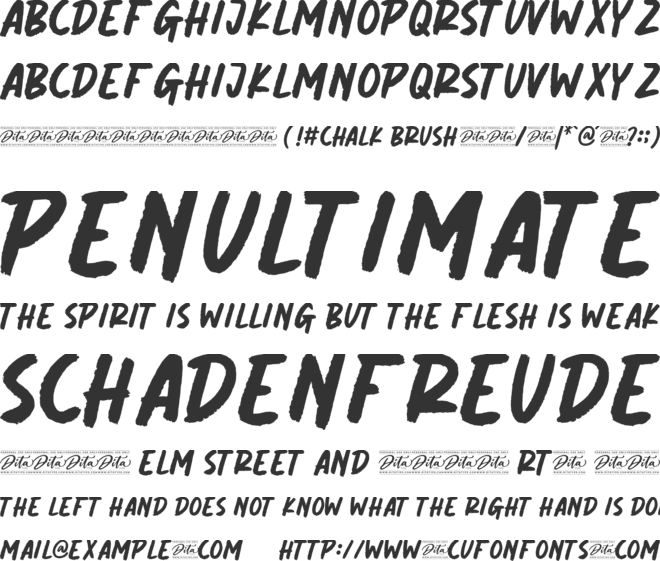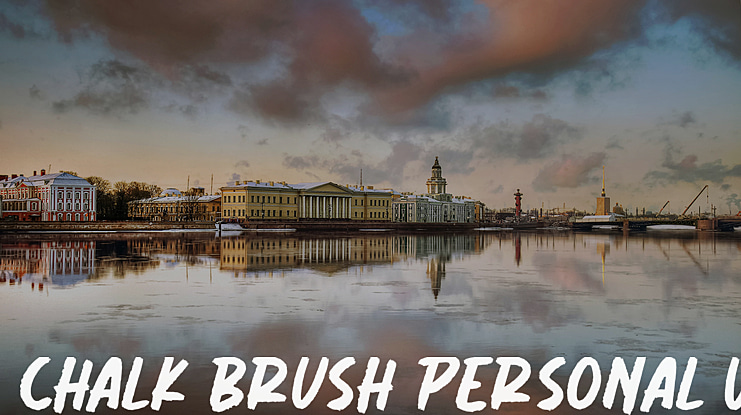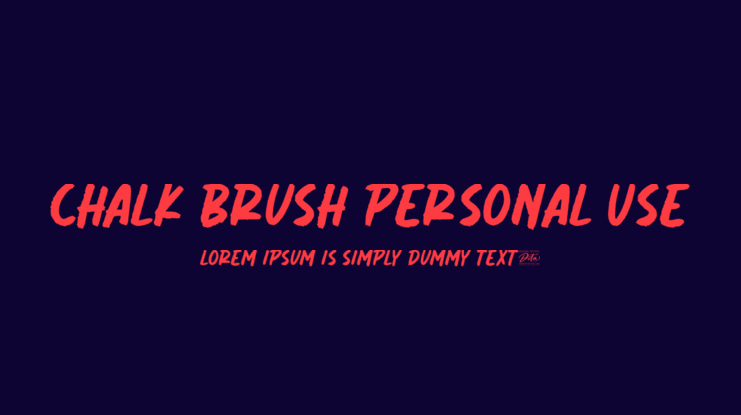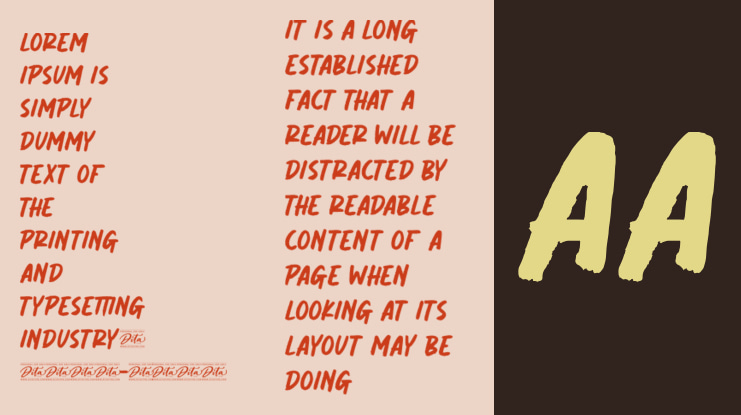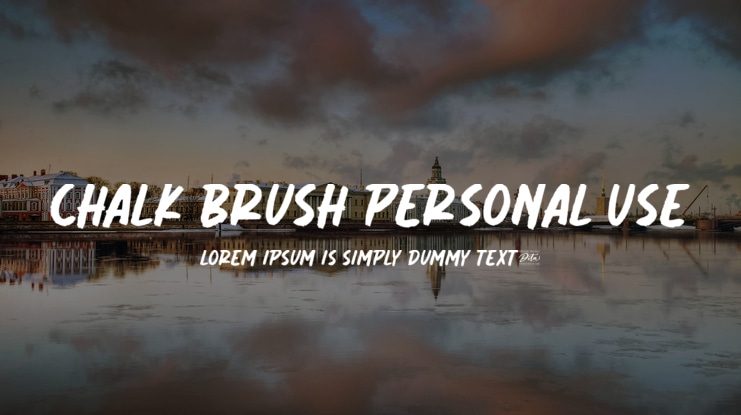
Chalk Brush is a Chalk brush font. With a playful and natural handwritten style, it brings a classy and chic typeface. Chalk Brush is best used for weddings, branding, logotype, and quotes.